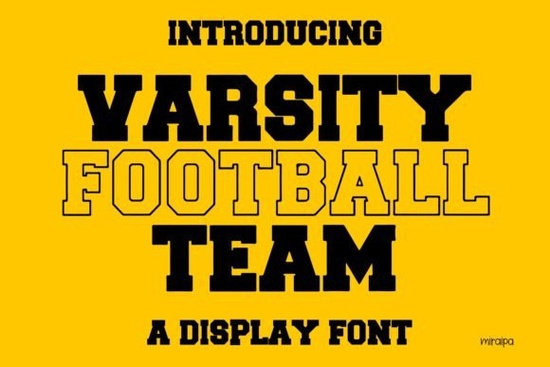
If you’re designing team merch, school spirit gear, or anything with a sporty vibe, the Varsity Football Team Font is worth checking out. It’s got that classic athletic look bold, clean, and just a little bit retro but with enough modern polish to feel fresh on posters, t-shirts, or social media graphics. Whether you’re running a small print shop, managing a school booster club, or just making custom hoodies for game day, this font slots right in without needing any design gymnastics.
What makes it work so well? The letterforms have that chunky, blocky charm you’d see on vintage football jerseys, but they’re spaced and weighted to read cleanly even at smaller sizes. That’s huge if you’re printing names on the back of tees or putting slogans on water bottles. You don’t need to tweak kerning or add outlines it’s ready to go straight out of the download folder.
Who actually uses fonts like this?
Turns out, a lot of people. Coaches ordering end-of-season awards. Etsy sellers making SVG bundles for Cricut users. Cafés near high schools printing “Friday Night Lights” specials. Even wedding designers have used similar styles for groomsmen gifts or bachelor party invites. The key is matching the tone fun, energetic, slightly nostalgic without looking cheesy.
If you’ve tried other display fonts and found them too stiff or too cartoony, you might want to compare how Blaster Glory leans more into comic-book energy, while something like Autumn Display brings softer, seasonal warmth. Varsity Football Team sits right in the middle: structured enough to feel official, playful enough to keep things light.
What pairs well with it?
Since it’s a display font, you’ll want something clean and neutral for body text or supporting info. A simple sans-serif like Helvetica Neue or Montserrat works fine. If you’re going full theme, try pairing it with Urbandrips for streetwear edge, or Breakfast Pastry if you’re mixing sports with snack bar vibes (think concession stand menus or tailgate party invites).
For color, stick to high-contrast combos: white on navy, gold on black, red on gray. Avoid busy backgrounds this font wants to be the star, not fight for attention.
Any hidden tricks or tips?
- Uppercase only? The font looks best in all caps. Lowercase letters are included, but they’re designed to match the uppercase weight and spacing not meant for paragraphs.
- Add texture lightly. A subtle grunge overlay or stitched effect can boost the vintage locker-room feel. Just don’t overdo it the font already has plenty of character.
- Check the numbers. Jersey-style numerals are included and styled to match. Perfect for player names, countdowns, or stats-based designs.
Final thought: This isn’t a font you’ll use every day. But when you need that Friday night energy, school pride, or underdog spirit? It delivers exactly what you hoped for no fluff, no fuss.